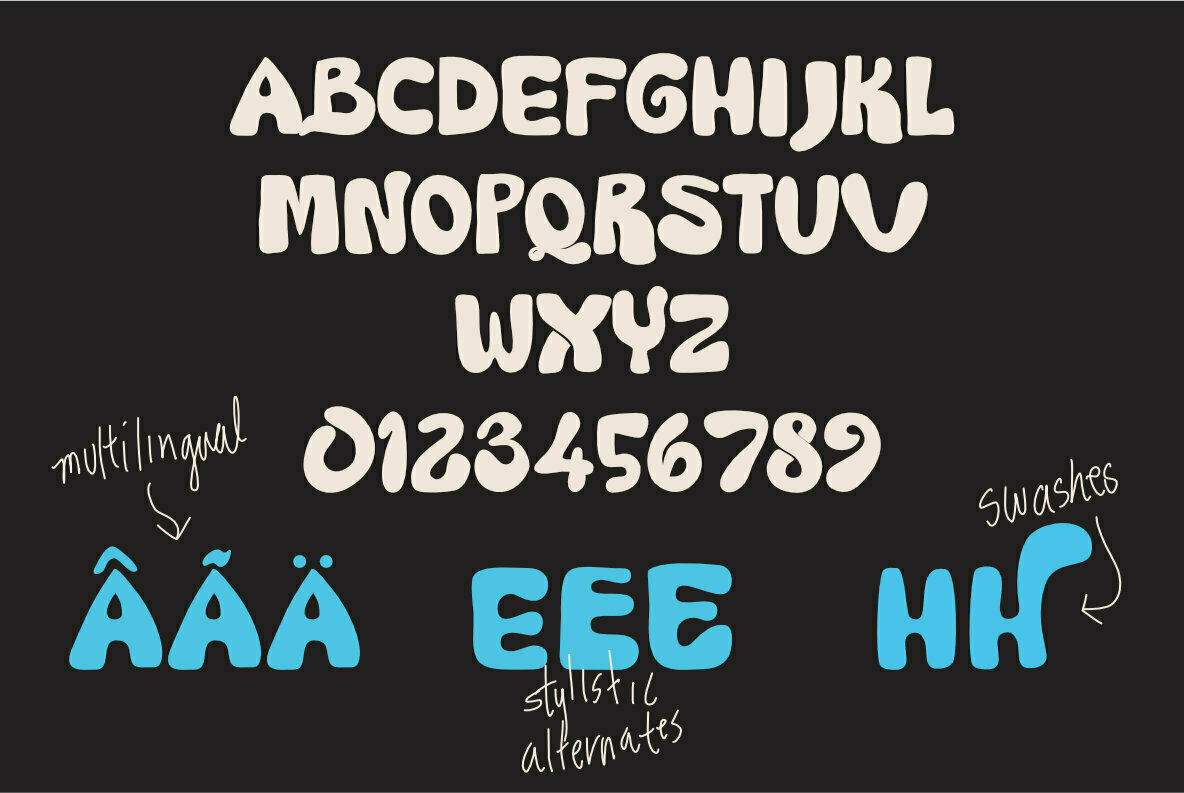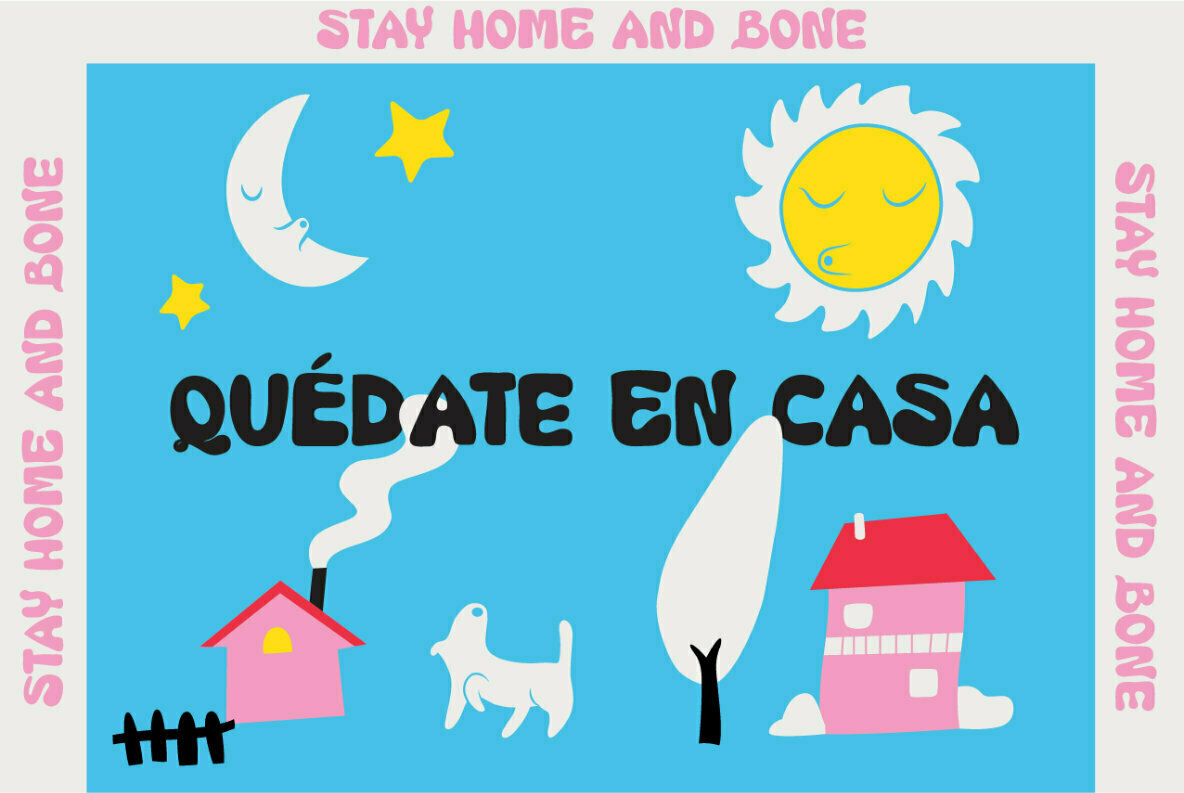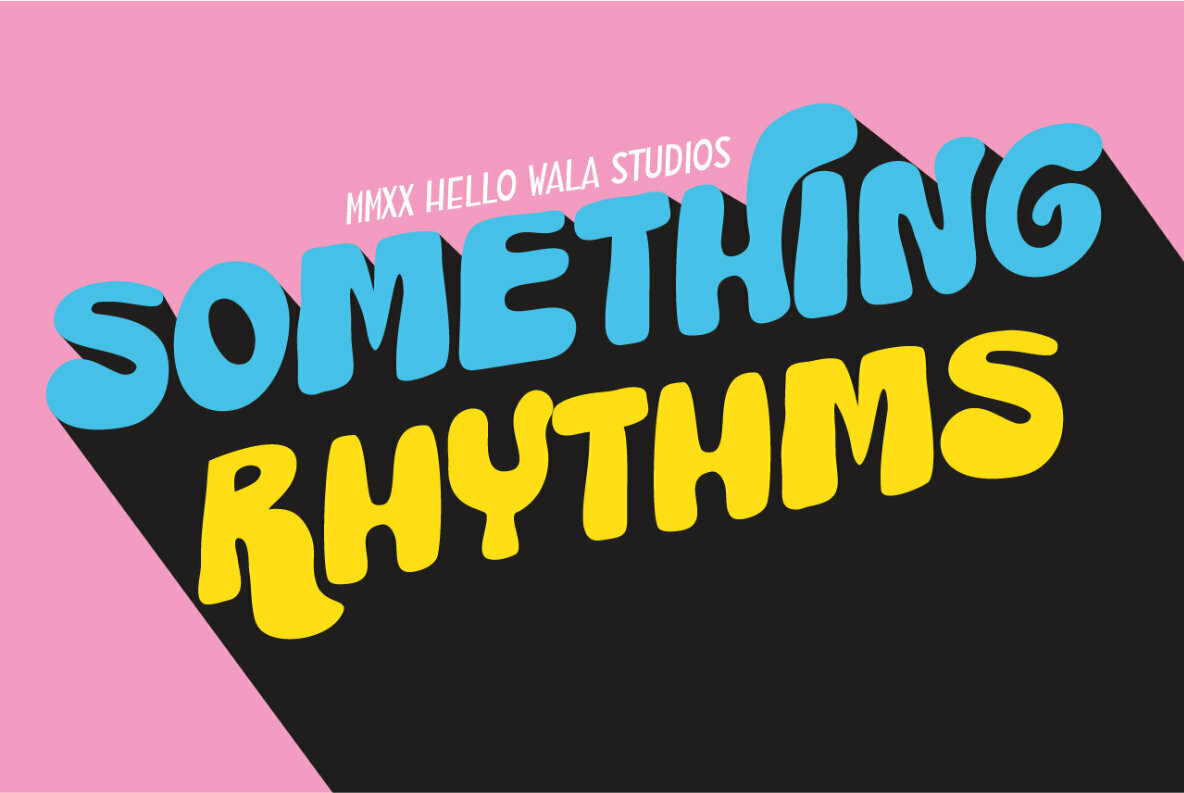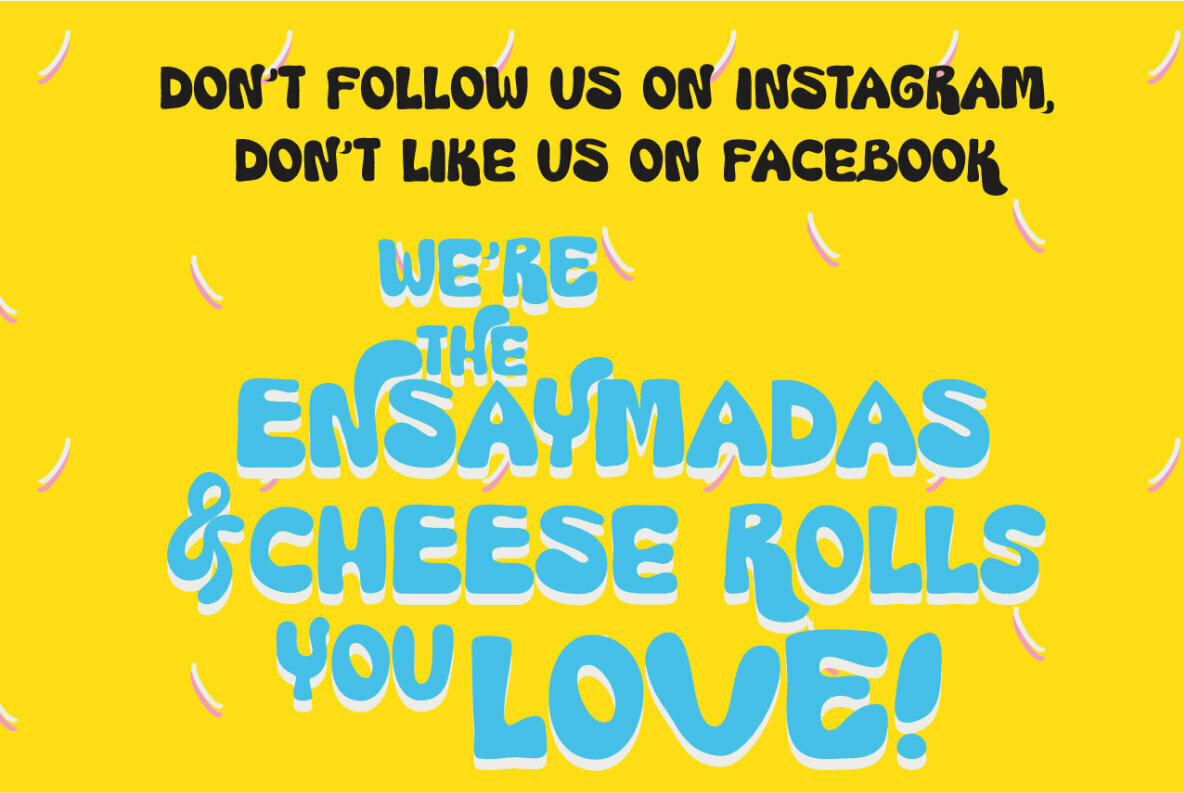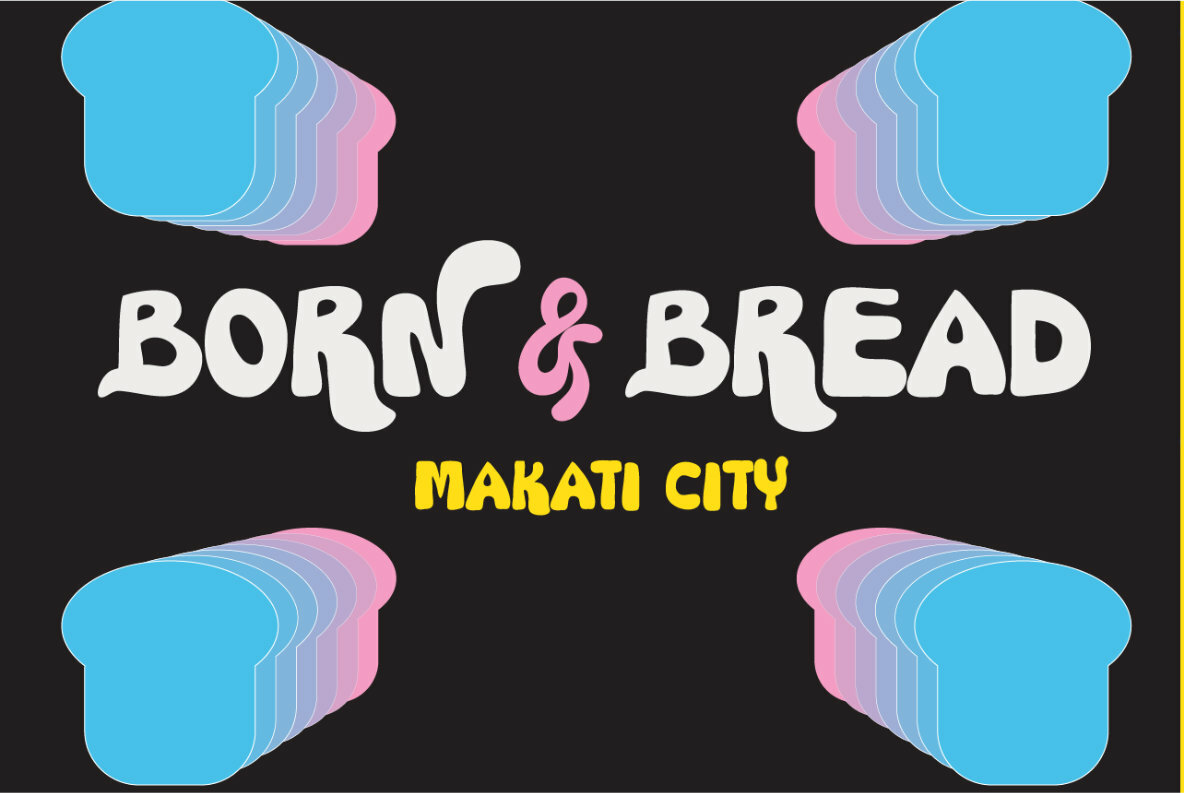
Milk Bread Font
Milk Bread
Milk Bread is a classic choice for those seeking a robust and eye-catching font for headlines, posters, or branding materials. The expansive, plump letterforms of this uppercase display font bring a sense of warmth and friendliness to any design project, making it a versatile option for graphic designers looking to make a substantial visual impact with their typography choices.Milk Bread: A Plump Uppercase Display Font
Design Features
Embrace the bold presence of Milk Bread to bring personality and distinction to your creative work.